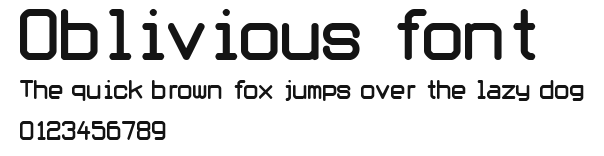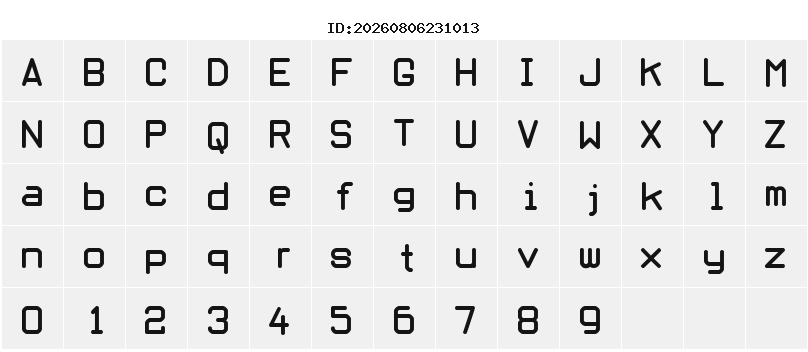
• Font Name: Oblivious font
• Font ID: Oblivious font
• Full Font Name: Oblivious font
• PostScript Name: Obliviousfont
• Character Count: 99
About Oblivious font.ttf
Oblivious font.ttf is a modern, elegant sans-serif font designed for ultimate readability and visual harmony. Perfect for branding, headlines, web design, and print materials.